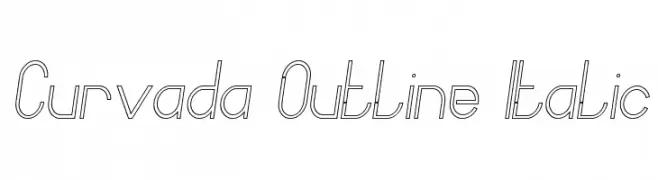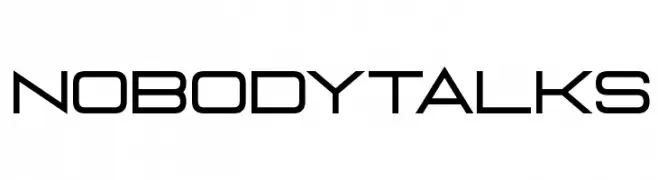
( Bojmic Interpro )
A geometric, grid-based font with a modern, technical look.
( CONORGREEN - cnrgrn.tumblr.com )
A modern, italicized outline font with elegant and dynamic characters.
( Carini Type Foundry - netz.werk.ch/carini/fonts/default.html )
A creative font using hand gestures to represent each character.
( Chequered Ink - chequered.ink/ )
A modern, geometric font with a sleek and technical design.
( Cioroianu Stefan Cristian )
A classic serif font with elegant, well-defined characters and moderate contrast.
( Daniel Plant - www.fontmonster.org )
A tactile writing system using raised dots for visually impaired readers.
( Edgard Rupel )
A classic serif font with medium weight and moderate contrast, ideal for formal and readable text.
( FZ Fonts - fontmovie.blogspot.com/ )
A modern, geometric font with mechanical elements and bold, angular letters.
( Fonts A Go-Go - www.postmodernvillage.com/fonts.html )
A geometric, squared font with thin strokes and a modern, minimalistic style.
( GNU FreeFont - savannah.gnu.org/projects/freefont/ )
A bold, oblique monospaced font with a modern and dynamic style.